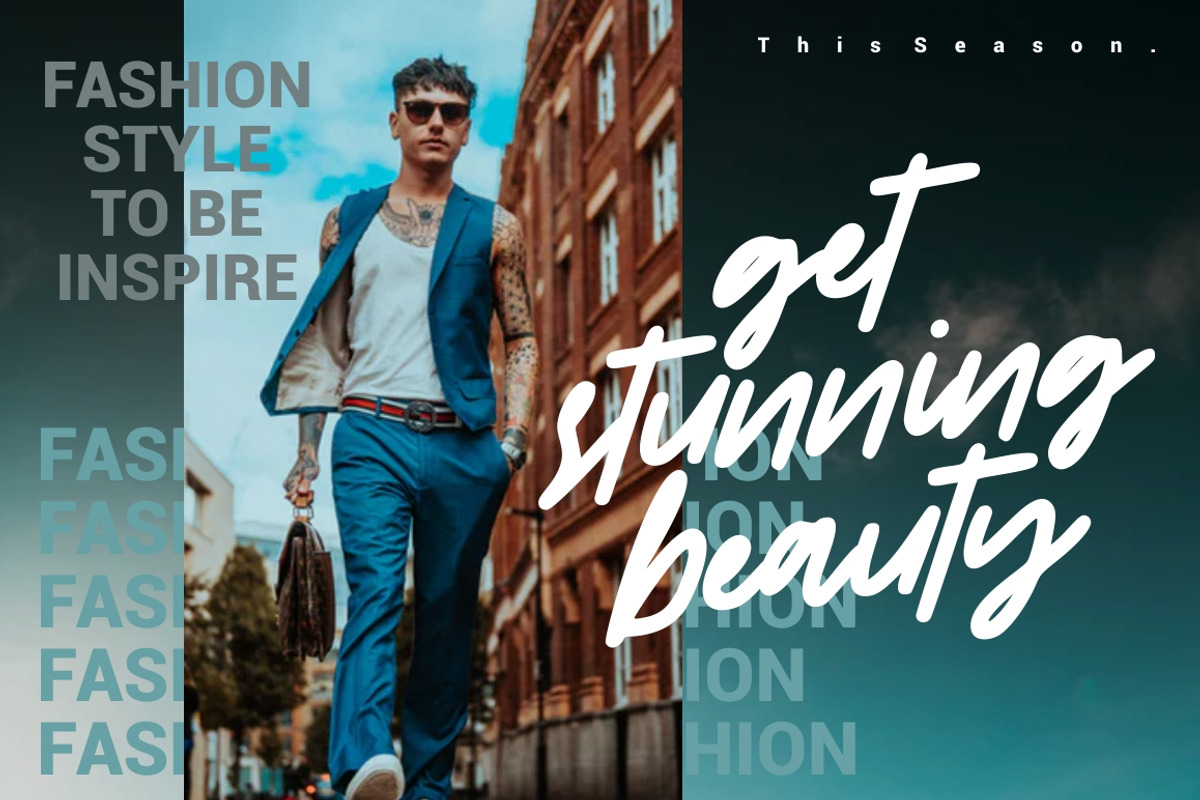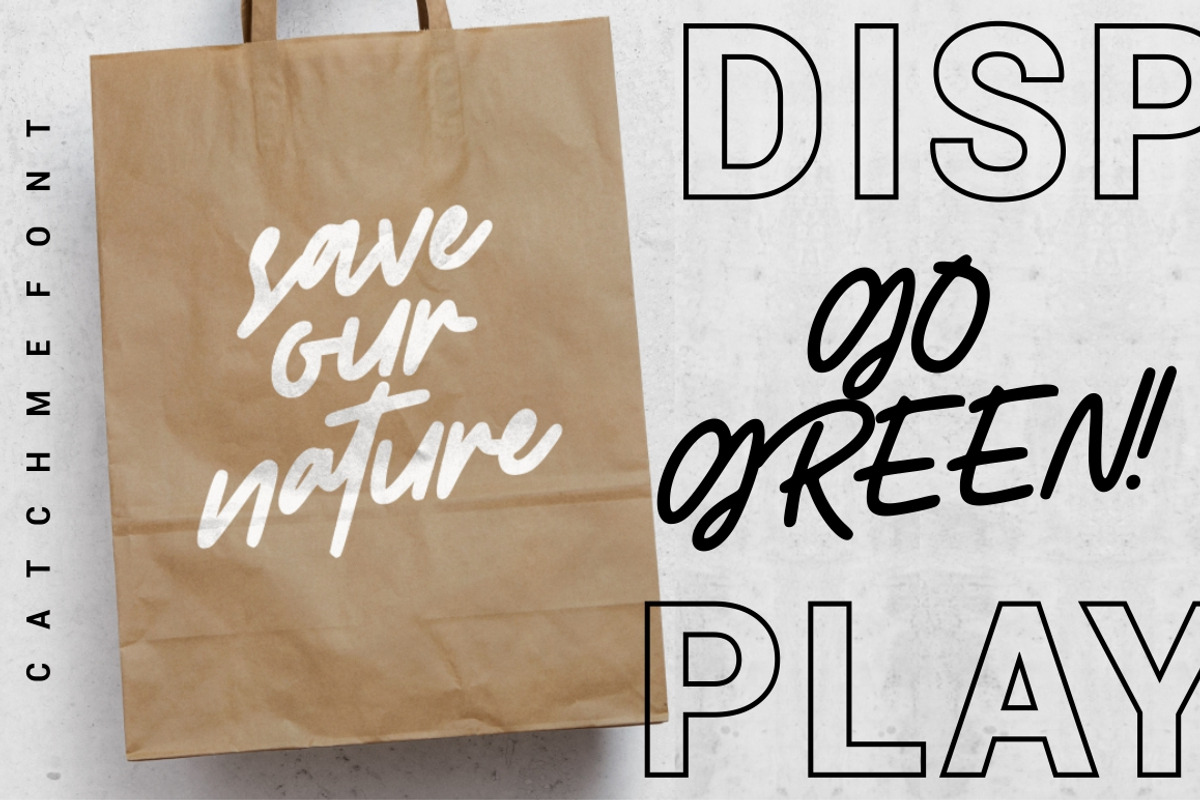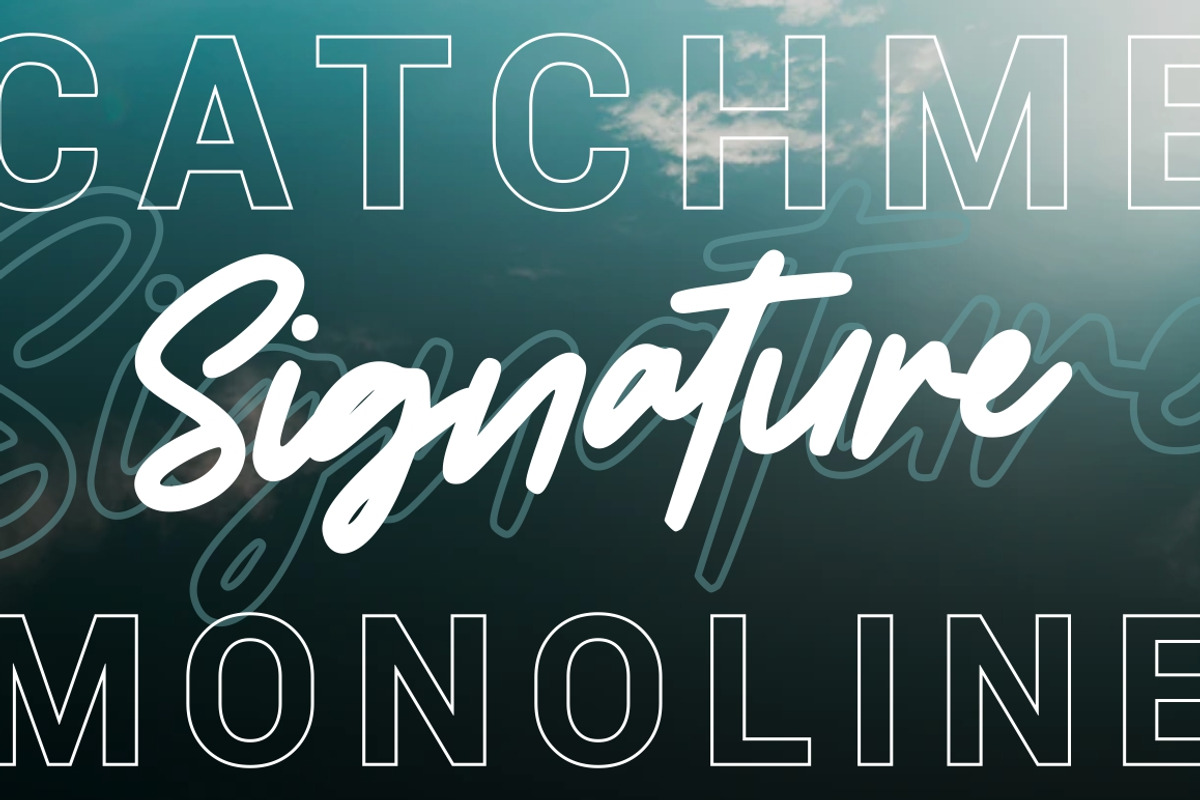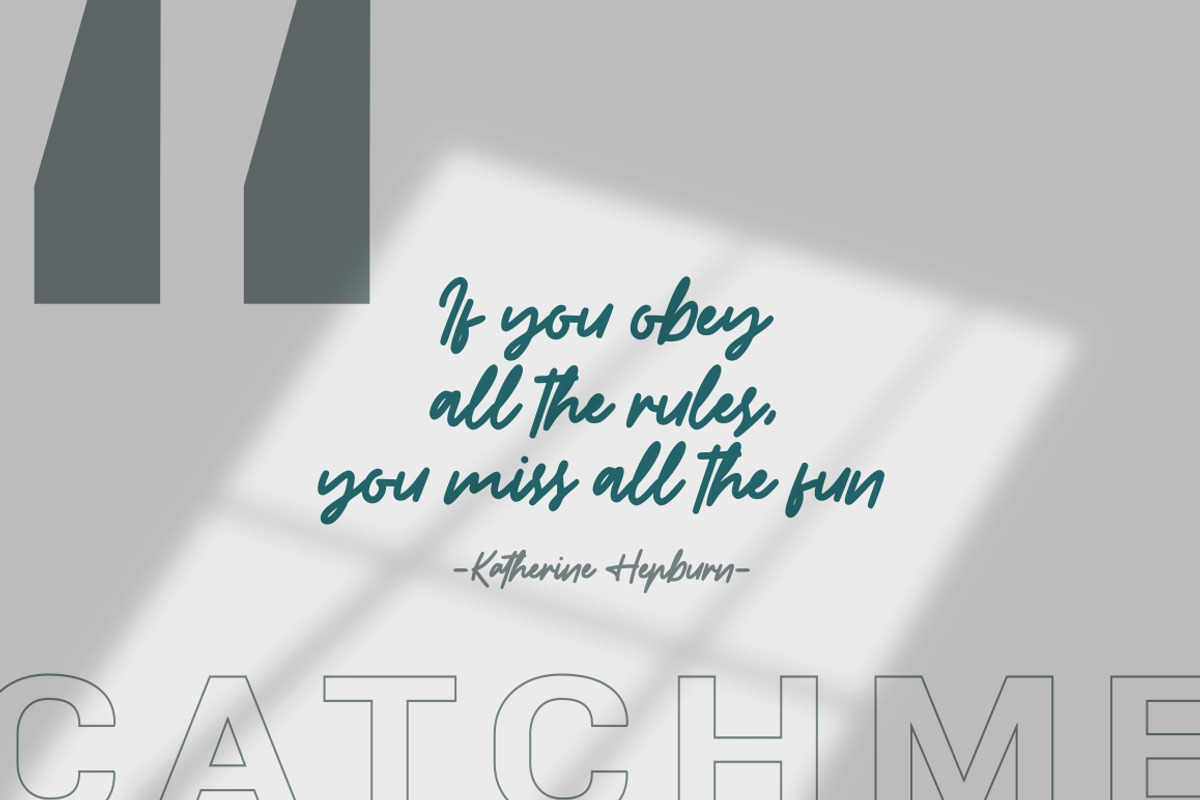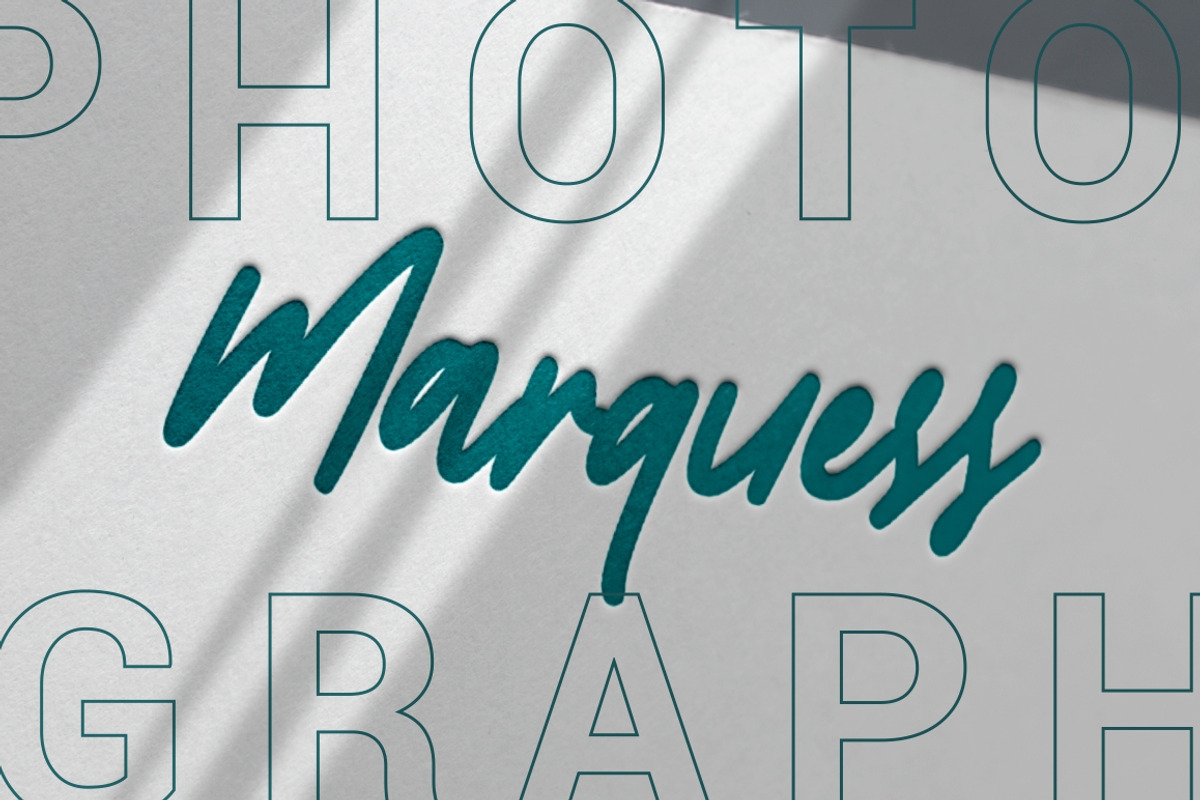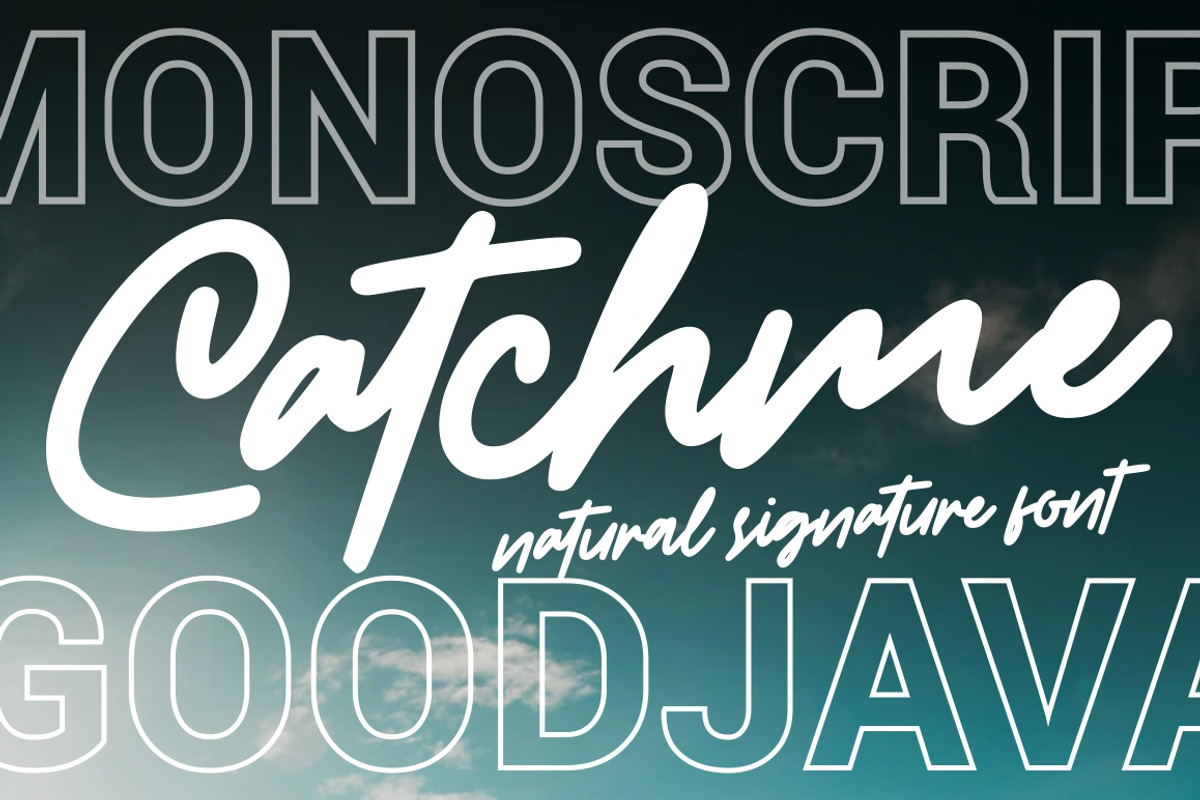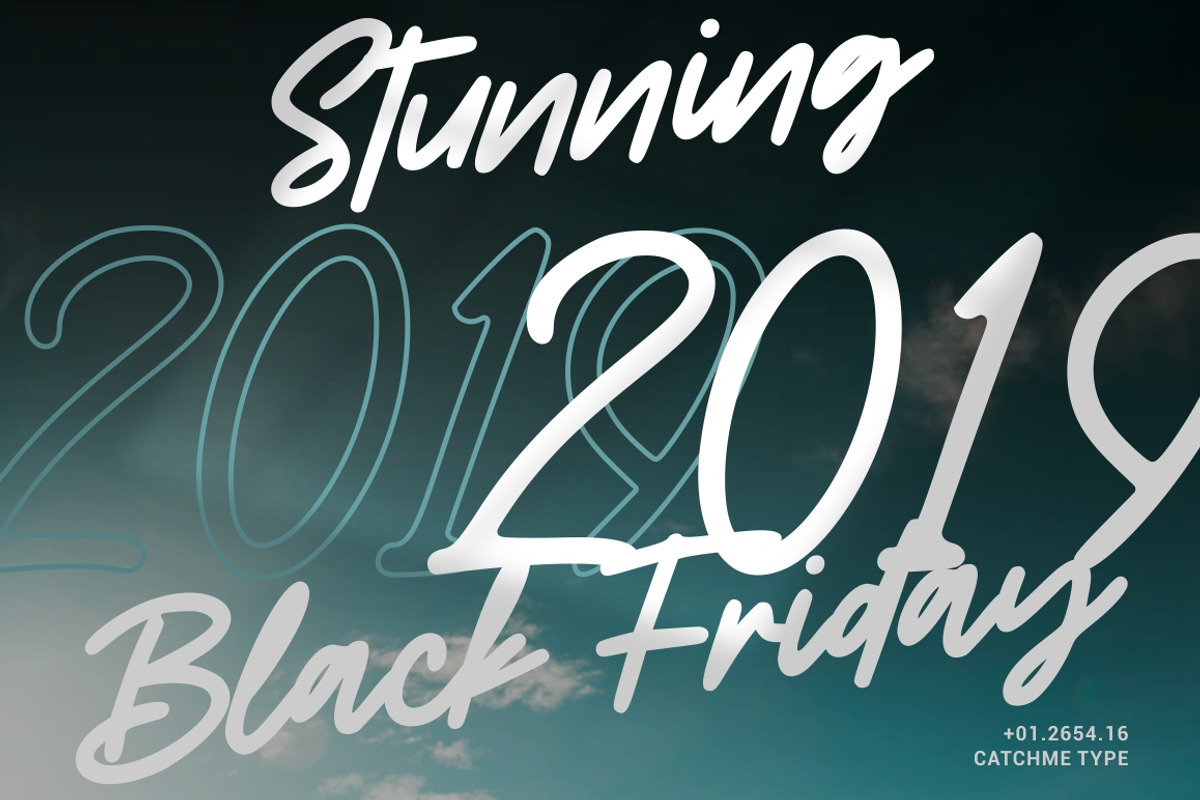
Catchme - Signature Font
Introducing Catchme - Signature Font
Catchme born from handwritting style fonts. Versatile for design poster, logo, branding, label, quote, headline profil, banner, t-shirt design, packaging, magazine, brochure, and many more your amazing work with this fonts.
- Catchme Regular
Why Catchme - Signature Font is worth a look
Catchme - Signature Font by Good Java Studio fits naturally into Branding, posters, packaging, typography.